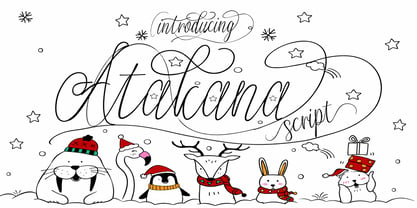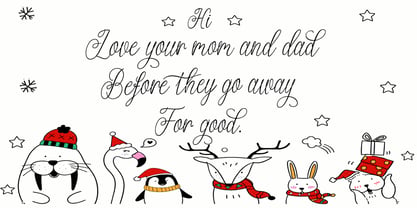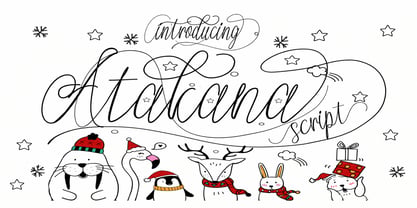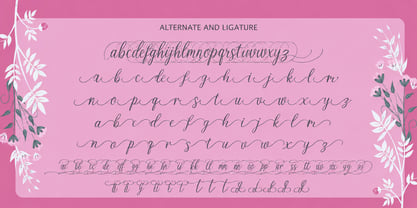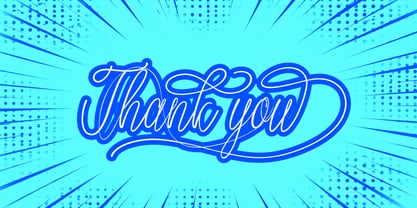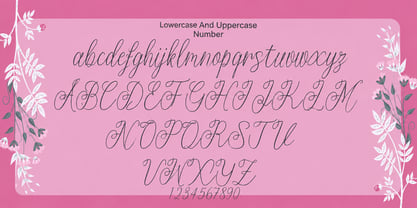
Atakana script
by Abbastype
The Atakana script Font Family was designed by Muhammad Abbas and published by Abbastype. Atakana script contains 84 styles and family package options. More about this family
A stylish modern script font featuring elegant flowing strokes, smooth curves, and a contemporary handwritten feel. Designed to add a sophisticated yet personal touch to branding, logos, invitations, social media graphics, packaging, quotes, and creative projects. Its graceful letterforms combine modern elegance with a natural handwritten character, making it versatile for both digital and print designs.
Designers: Muhammad Abbas
Foundry: Abbastype